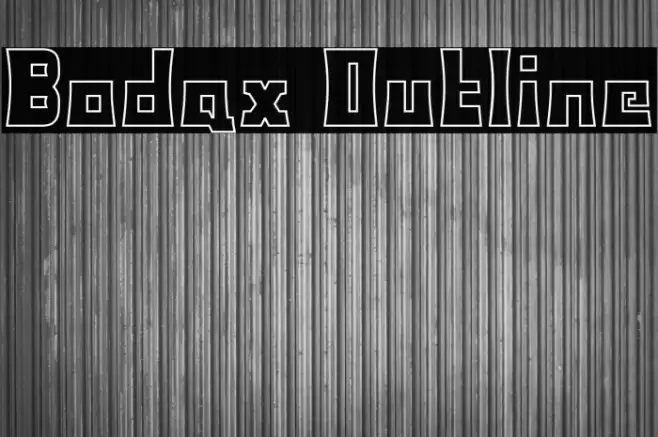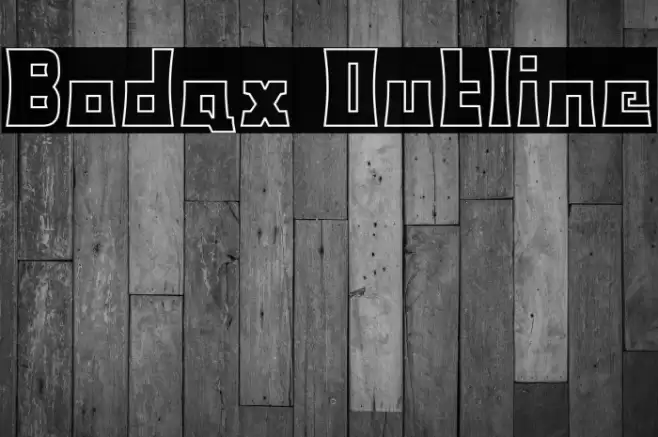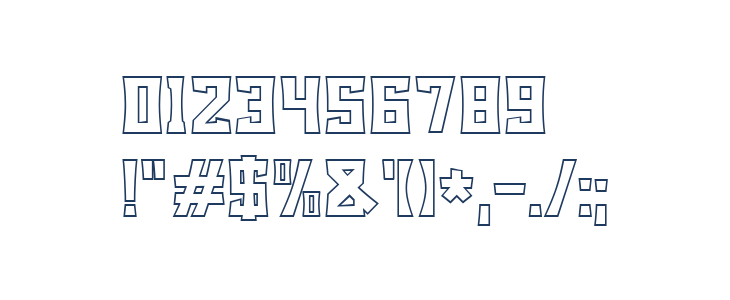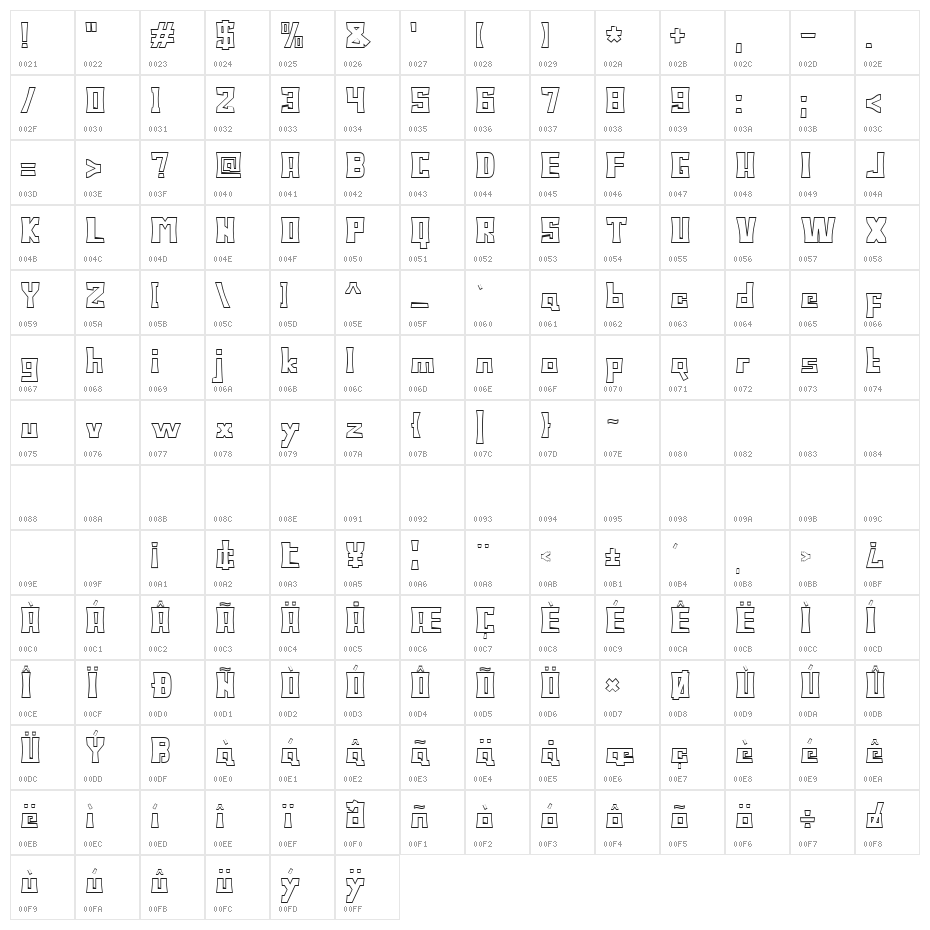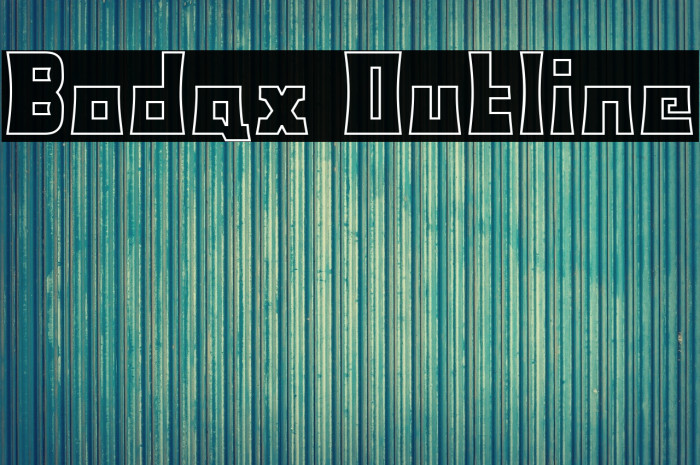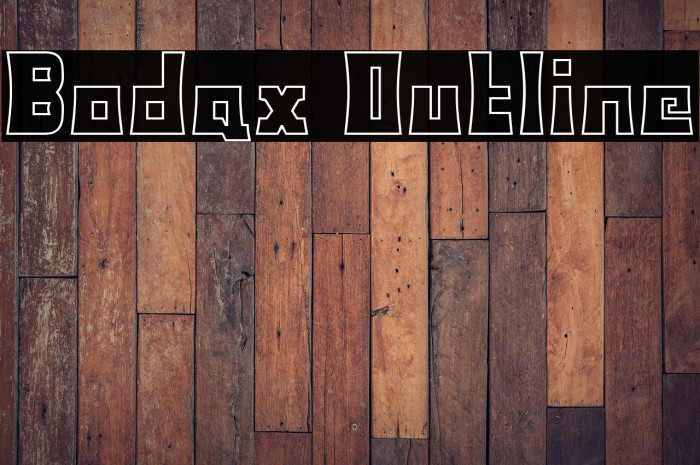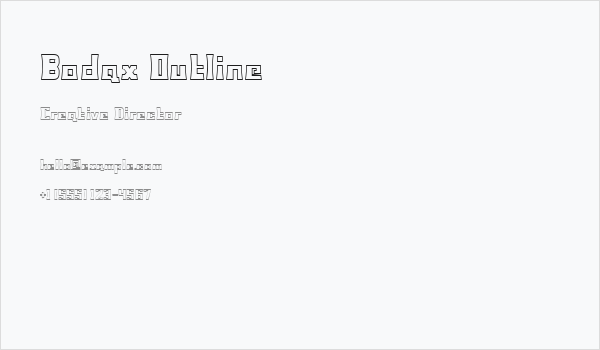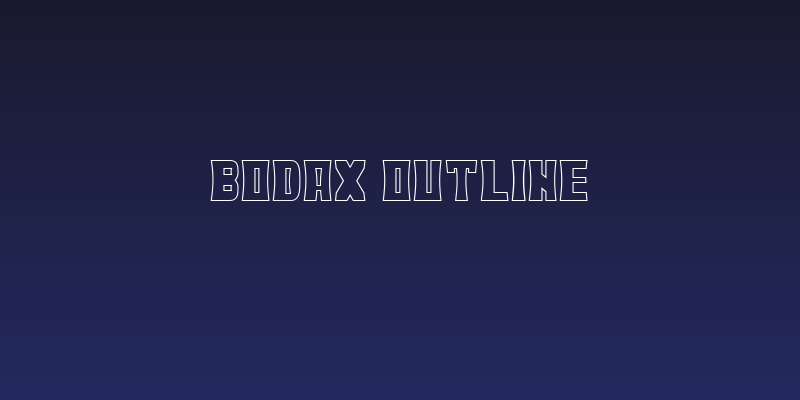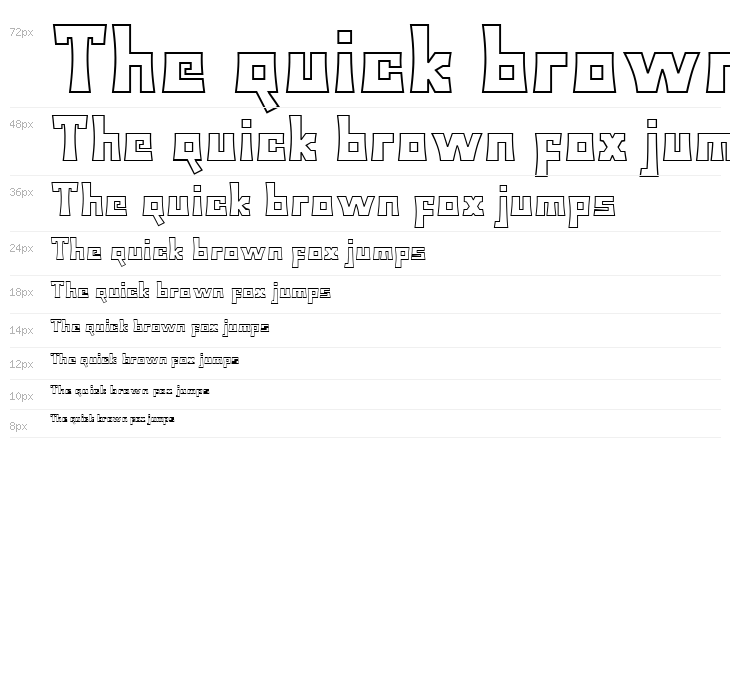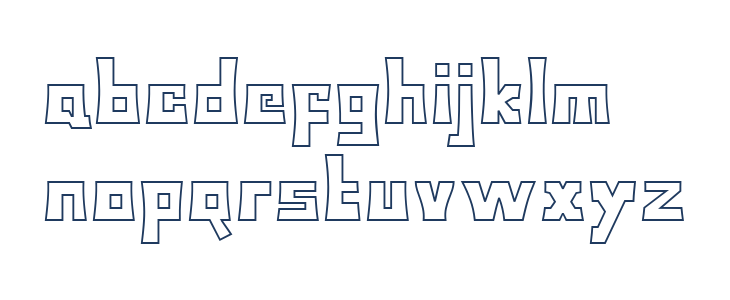
Bodax Outline Font
Bodax Outline Description
This font features a bold, geometric outline style that is both striking and modern. Each character is crafted with sharp angles and a consistent thickness, creating a uniform appearance across all letters and numbers. The uppercase and lowercase letters maintain a similar width, providing a cohesive look. The font's outline design gives it a unique, edgy feel, making it stand out in any design. The numerals and special characters are designed with the same attention to detail, ensuring they complement the alphabetic characters perfectly. This font is ideal for projects that require a bold statement or a modern, artistic touch.
A bold, geometric outline font with sharp angles and a modern style from Regular fonts.
- Proposed Projects: Ideal for posters, logos, headlines, and any design needing a bold, modern touch.